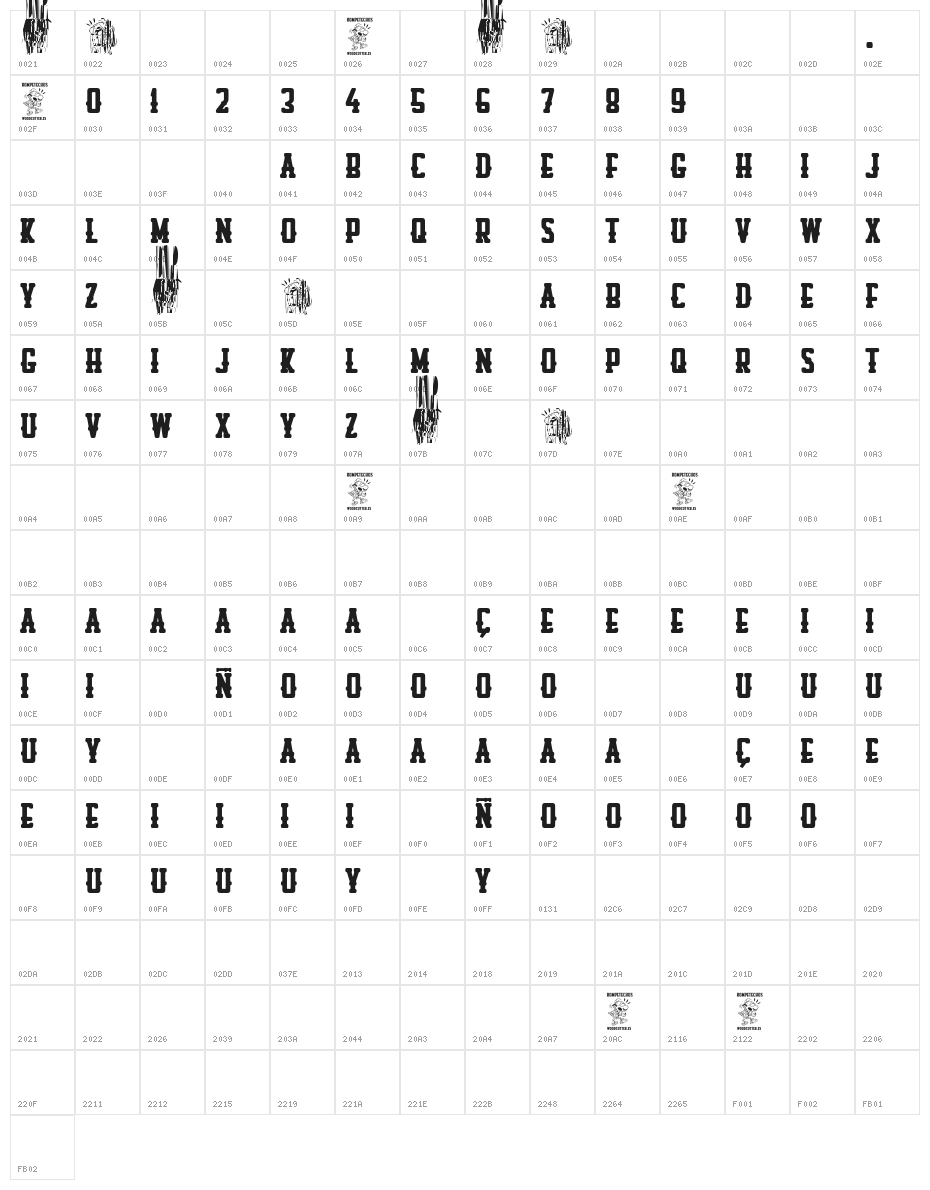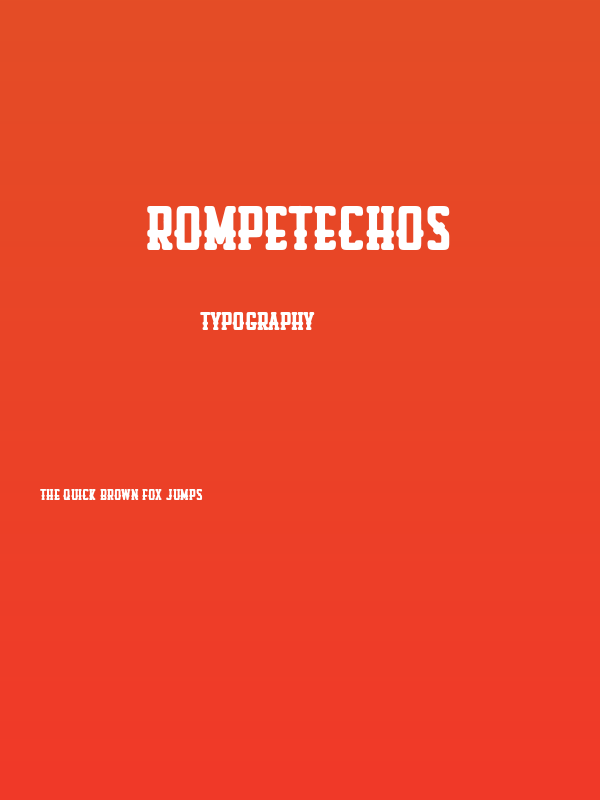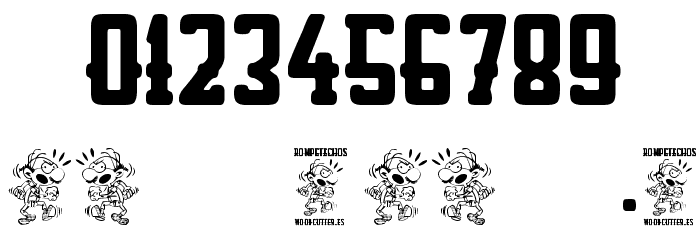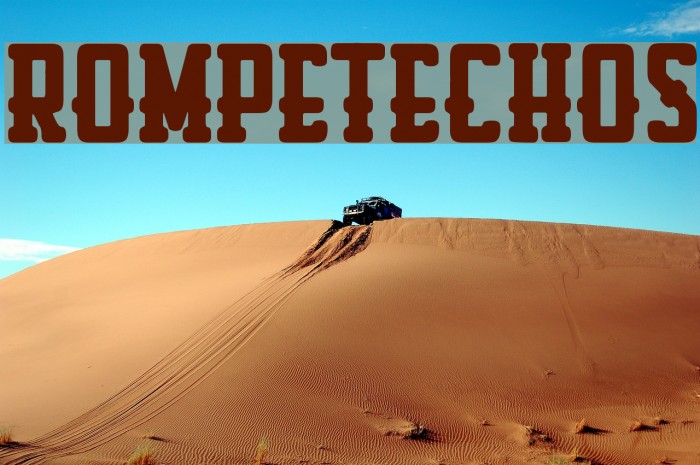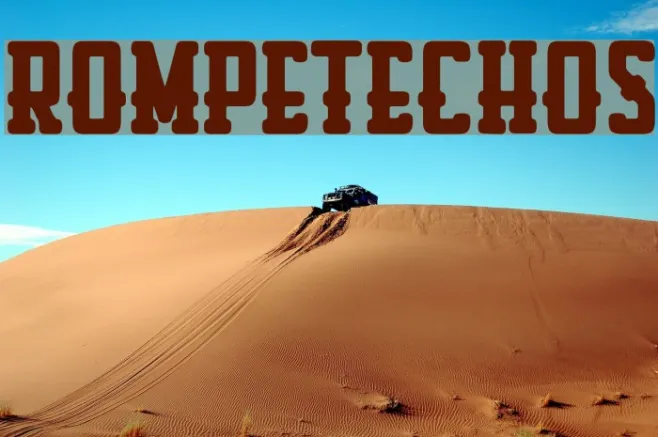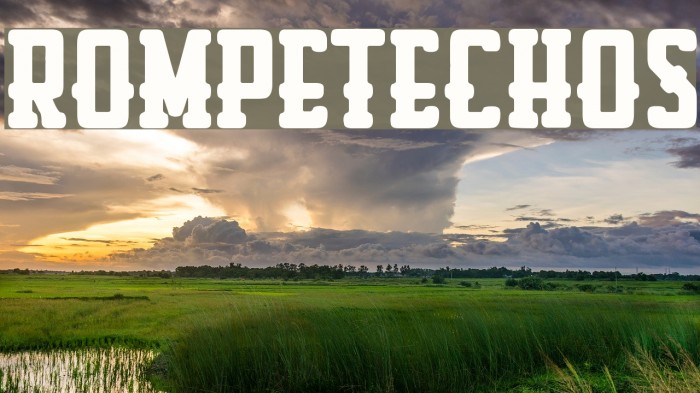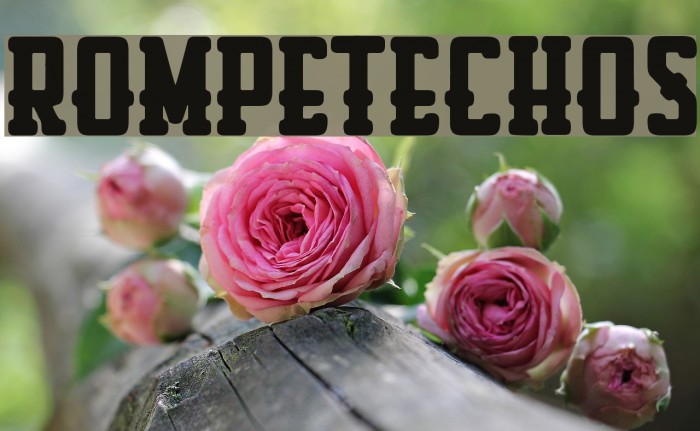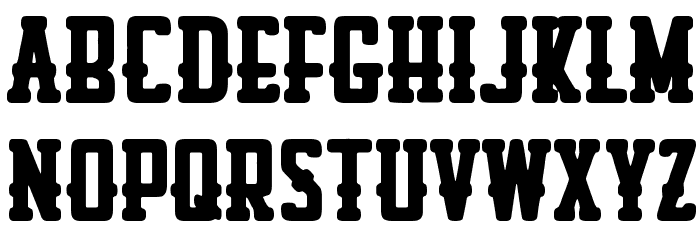
Rompetechos Font
Rompetechos Description
This font features a bold, playful design with thick, blocky characters that have a unique, cartoonish flair. The letters are heavily stylized with rounded edges and a slightly condensed form, giving them a distinctive presence. The numbers and special characters follow the same bold and playful aesthetic, making the font suitable for eye-catching designs. The overall style is reminiscent of vintage comic book lettering, adding a nostalgic touch to any project.
| Overall Style | Vintage, Playful |
| Proposed Projects | Ideal for comic book titles, children's book covers, playful branding, and retro-themed posters. |